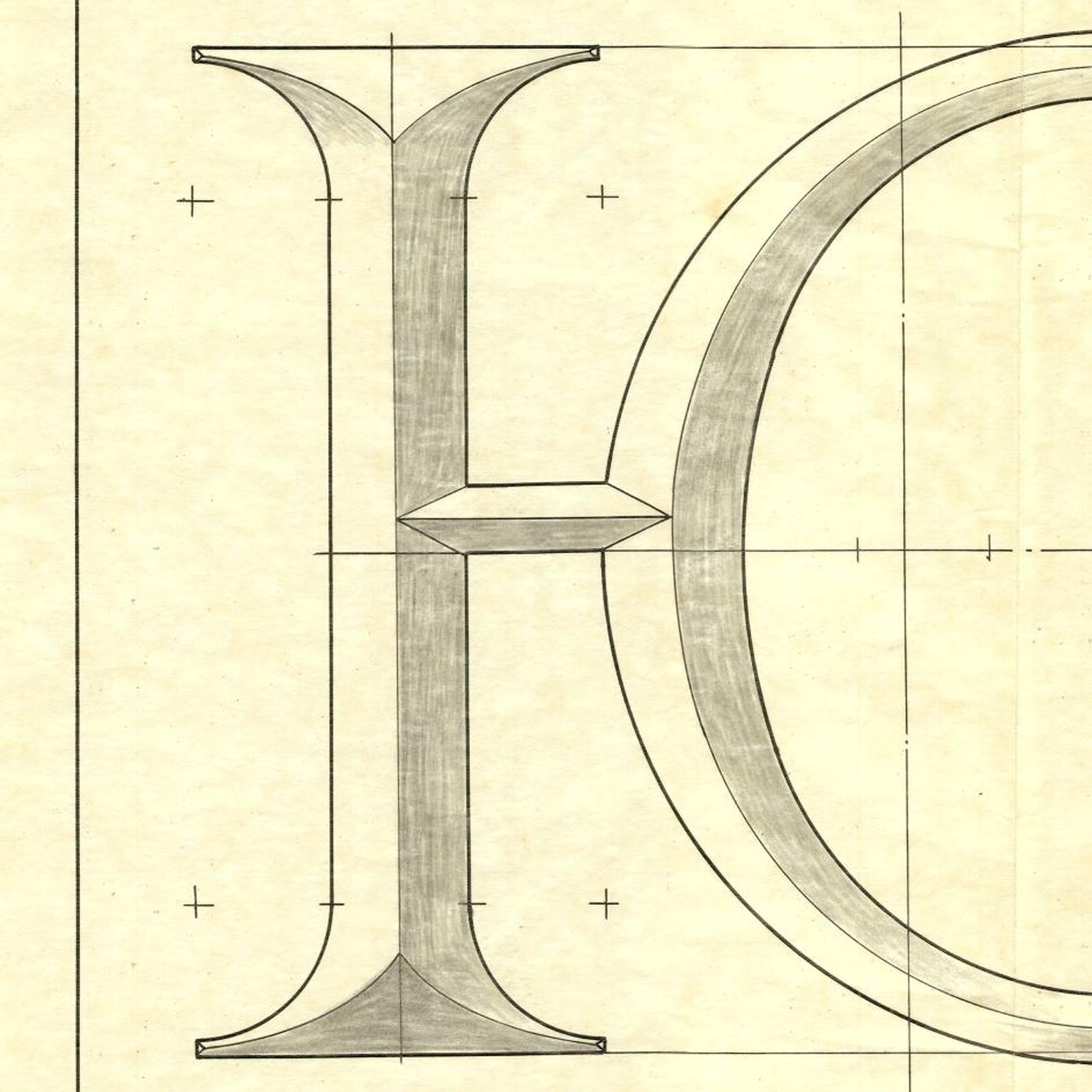
KTF Metro Fonts by Kyiv Type Foundry preserves six typefaces from 60 years of Kyiv subway station signage. Free for Ukrainians, donation-based worldwide.
The collection emerged from a summer 2023 workshop led by Yevgeniy Anfalov and OleÅ› Gergun, founders of Kyiv Type Foundry. Students and mentors analyzed lettering across Kyiv Metro stations from the system's 1960 opening through the post-Soviet era of rapid renaming and typographic fragmentation. The result is a set of six distinct typefaces, each drawing from archival station lettering and treating historical imperfections as documentary artifacts rather than errors to fix.
The metro carries 1.32 million passengers daily. When Russia's invasion began in 2022, Kyiv Metro stations became bomb shelters for thousands of residents. Kyiv Type Foundry describes KTF Metro Fonts as a cultural preservation effort, a record of Ukrainian architectural typography at risk of being erased by advertising, bureaucratic indifference, and rapid decommunization.
KTF Metro Fonts: Six Decades of Station Lettering Recovered
The six faces span distinct eras. KTF Metro Roman pulls from the neoclassical serif lettering of the Red Line's first seven stations (1960-63), intentionally preserving a faulty Cyrillic letterform at Maidan Nezalezhnosti as historical document. KTF Metro Blueline captures the wide, Eurostile-adjacent sans-serif used on 1980-84 Blue Line stations. KTF Metro Sport comes from Palats Sportu station, tracing back to a Dutch commercial catalogue type from 1984. KTF Metro Botanical and KTF Metro Xarkiv cover the eclectic post-1990 period. KTF Contract, a sixth variant, documents the Soviet-standard industrial sans-serif used across multiple lines.